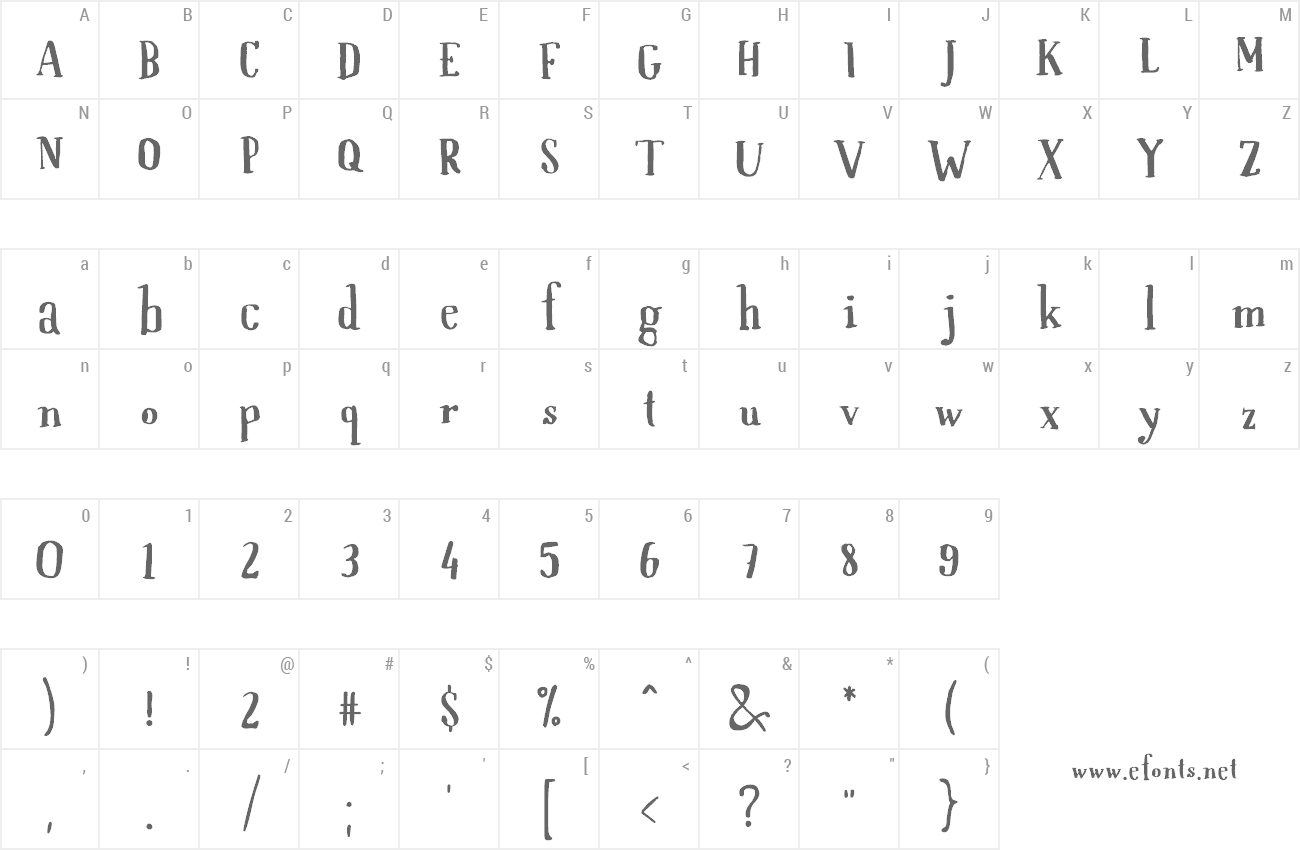
| Font name: | Upirjump |
| Author: | Vaclav Krejci |
| Note by Vaclav Krejci | |
UPIRJUMP - 100% free jumpy handwritten font. Use it for whatever you want. If you want to use it for commercial work, it is required to somewhere mention my name (V�clav Krejč�) and the name of the font. If you create something with the font, I would love to see it! Please send me a link. Created in 2019 in Adobe Illustrator using Fontself plugin. |